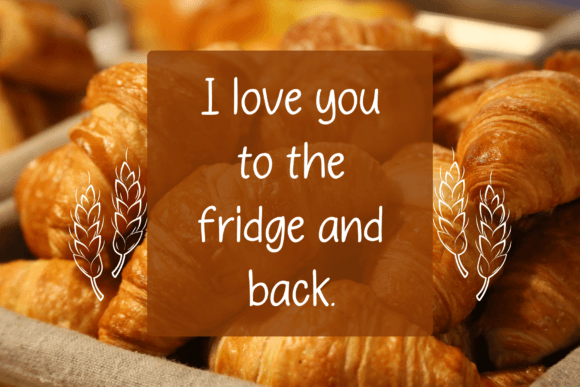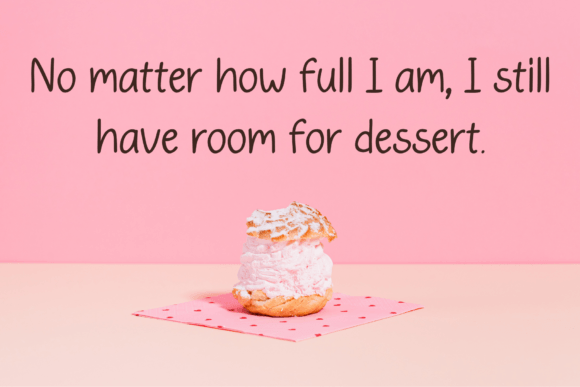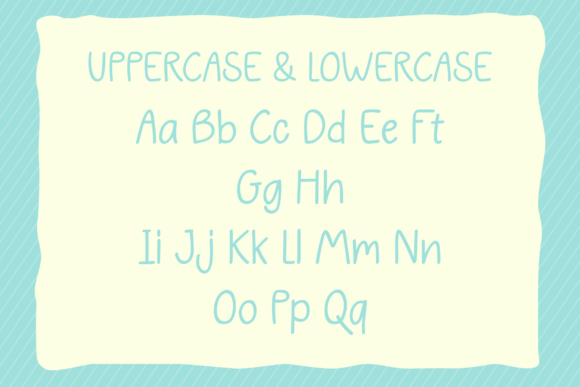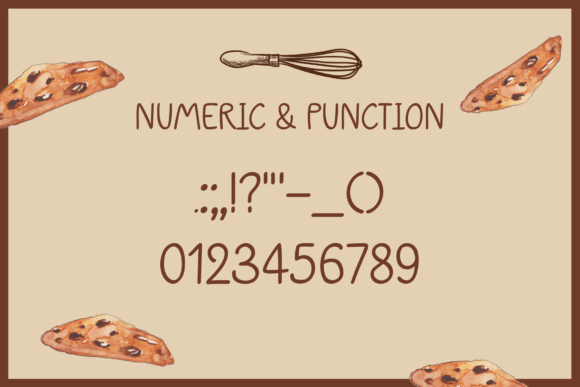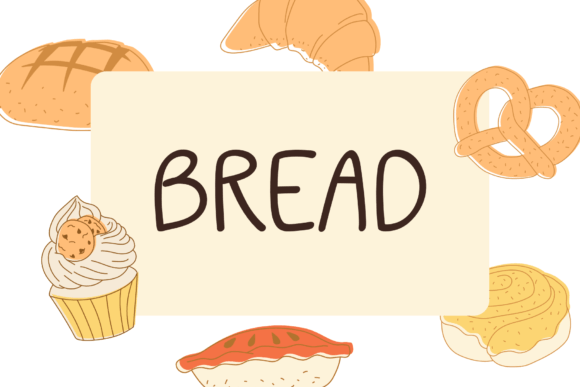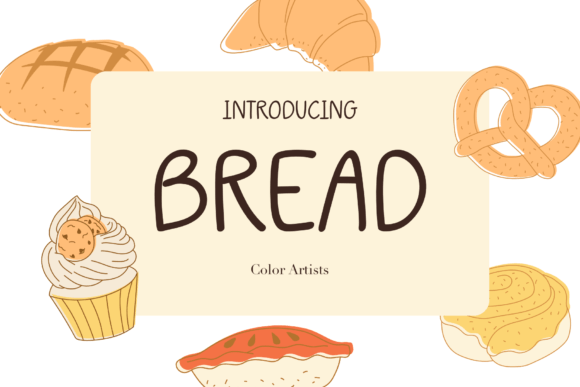
Introducing Bread – The Perfect Typeface for Baking and Culinary Needs
Are you a designer, baker, or crafter looking for a unique and stylish font to elevate your culinary projects? Look no further than the Bread font! This deliciously beautiful typeface is specifically designed to capture the essence of freshly baked bread, with its soft curves and rustic texture.
The Inspiration Behind Bread Font
The Bread font was created with the intention of bringing a touch of warmth and coziness to your designs. The inspiration behind this font comes from the artisanal bread-making process, where every loaf is handcrafted with love and care. The font’s designer aimed to bottle the rustic charm of a freshly baked baguette and translate it into a typographic masterpiece.
Key Features of Bread Font
• Soft Curves: The Bread font features soft, rounded curves that evoke the gentle texture of freshly baked bread. These curves add a touch of warmth and approachability to your designs.
• Rustic Texture: The font’s rustic texture gives it a unique, handcrafted feel that’s perfect for culinary projects. The texture adds a layer of depth and visual interest to your designs.
• Highly Legible: Despite its unique texture and curves, the Bread font is highly legible, making it perfect for use in a variety of applications, from logos and menus to headings and body text.
• Versatile: The Bread font is incredibly versatile and can be used in a wide range of design projects, from baking and culinary branding to crafts and DIY projects.
Use Cases for Bread Font
The Bread font is perfect for a variety of design projects, including:
• Bakery Logos: Create a stunning logo for your bakery or culinary business with the Bread font. The font’s rustic texture and soft curves will help your brand stand out.
• Restaurant Menus: Add a touch of warmth and coziness to your restaurant menu with the Bread font. The font’s high legibility makes it perfect for use in menu design.
• Crafting and DIY Projects: The Bread font is also perfect for crafters and DIY enthusiasts looking to add a personal touch to their projects. Use the font to create custom signs, labels, and more.
Why Choose Bread Font?
With so many fonts available, why choose the Bread font? Here are just a few reasons:
• Unique: The Bread font is a unique and stylish typeface that will help your designs stand out from the crowd.
In conclusion, the Bread font is the perfect typeface for all your baking and culinary needs. With its soft curves, rustic texture, and high legibility, this font is sure to elevate your designs and add a touch of warmth and coziness. Whether you’re a designer, baker, or crafter, the Bread font is a must-have in your typographic arsenal. Try it out today and experience the deliciously beautiful typography it has to offer!